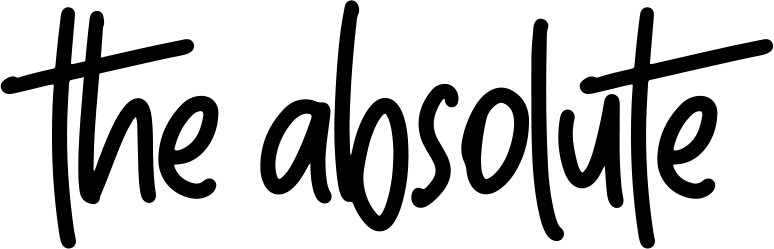
The Absolute Font
If you want to make an invitation or greeting card to your loved ones, your font needs to be approachable and playful. The best suggestion here is a handwritten font. The Absolute font can make the text more enjoyable for your contacts with its curved and decorative style. This font doesn’t have uppercase letters but can be used to write short informal writings such as postcards, invitations, and more.